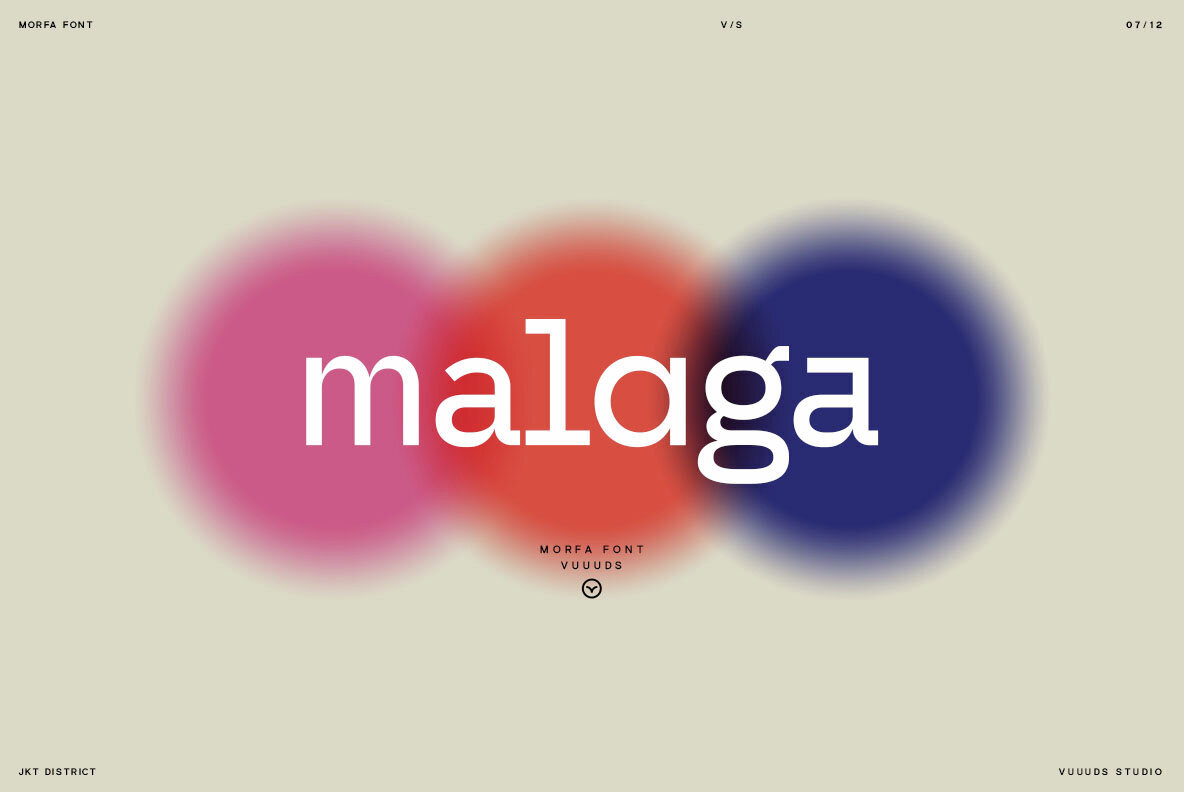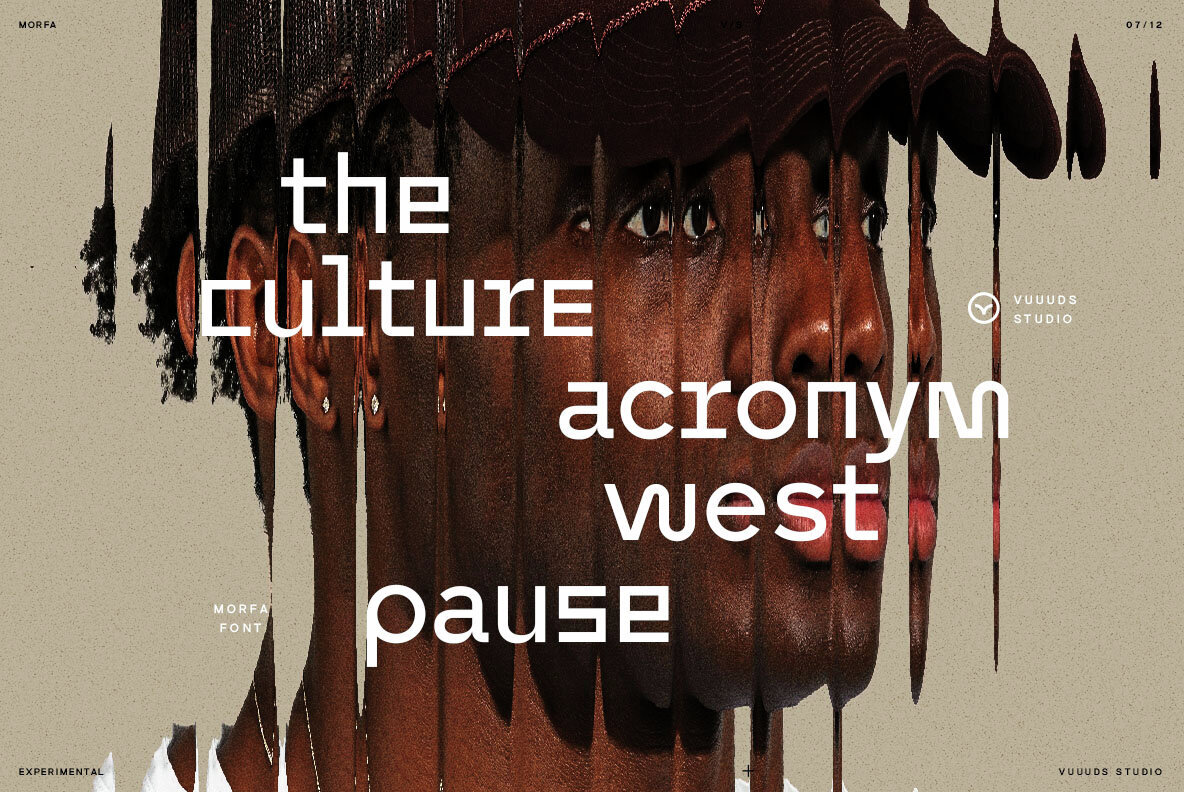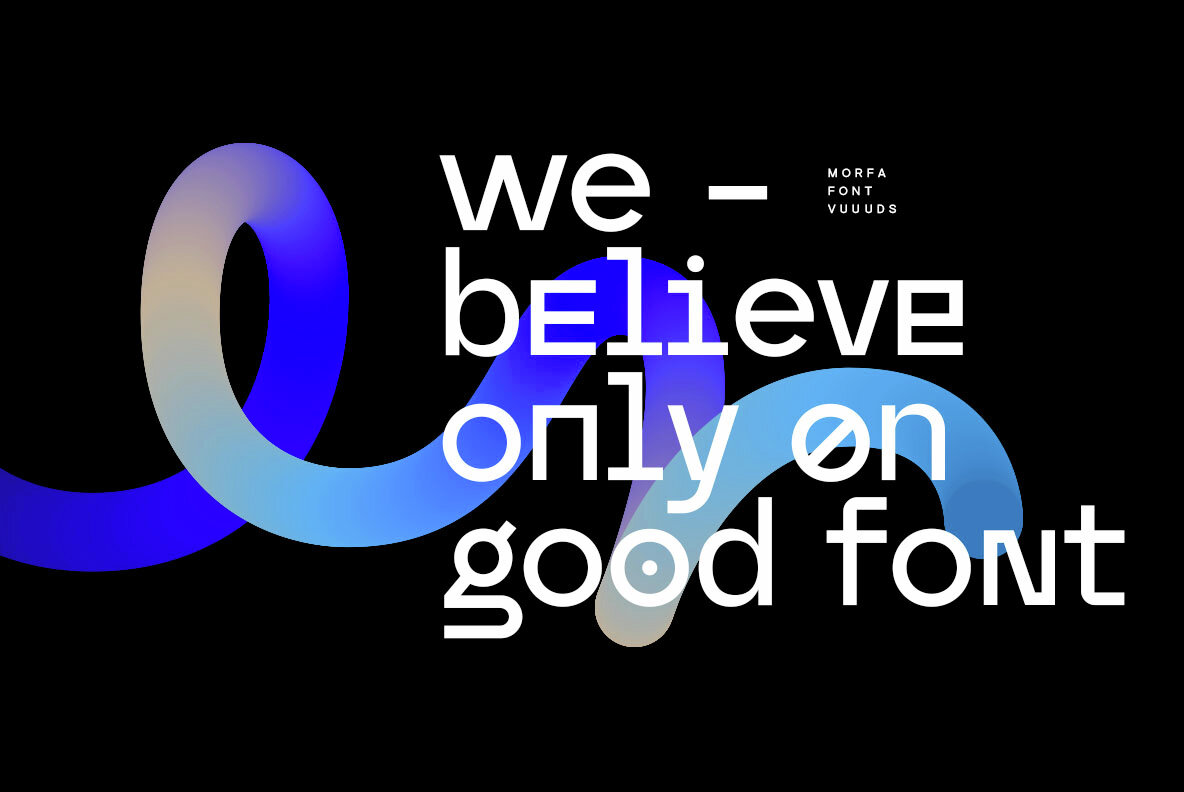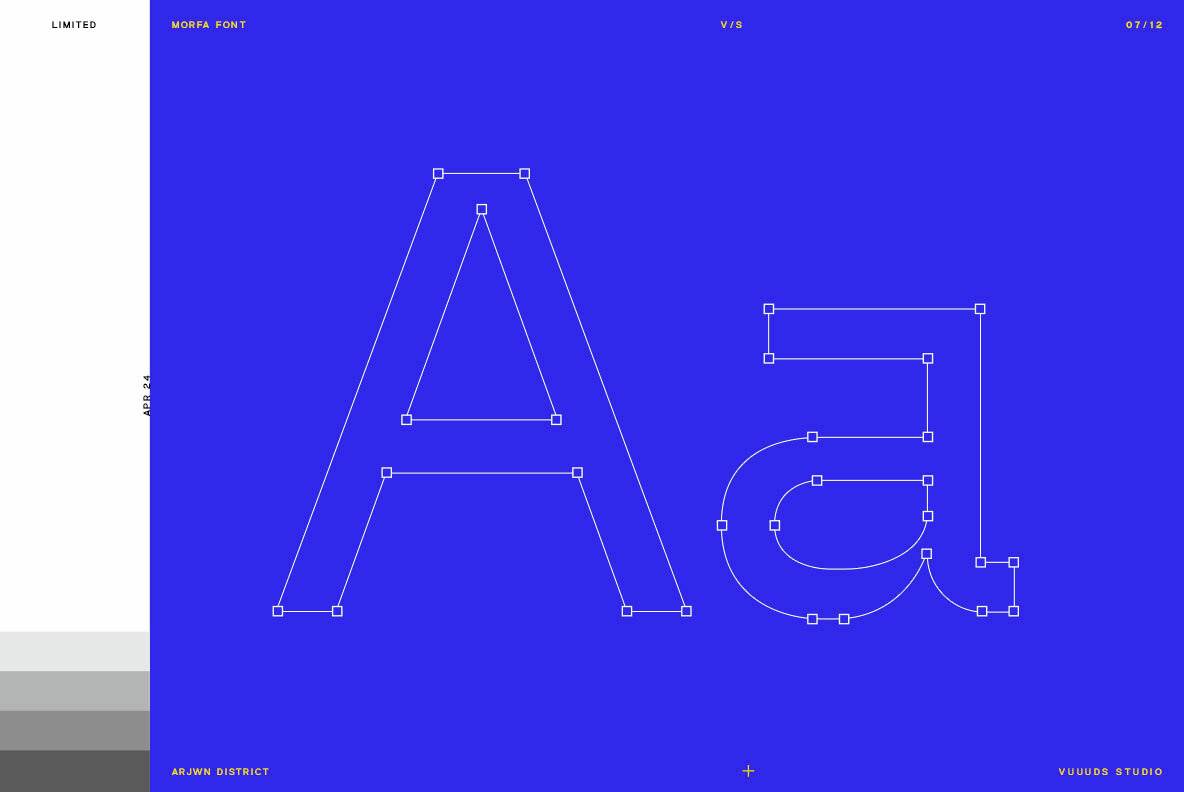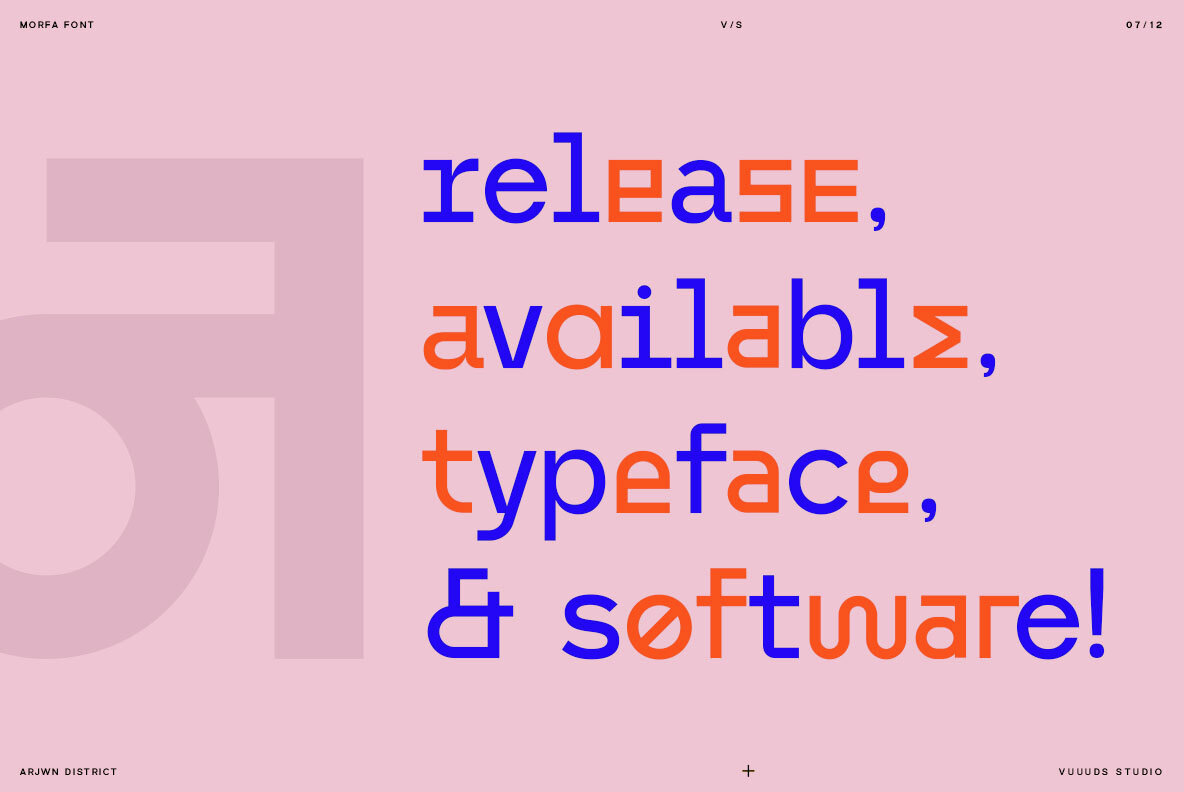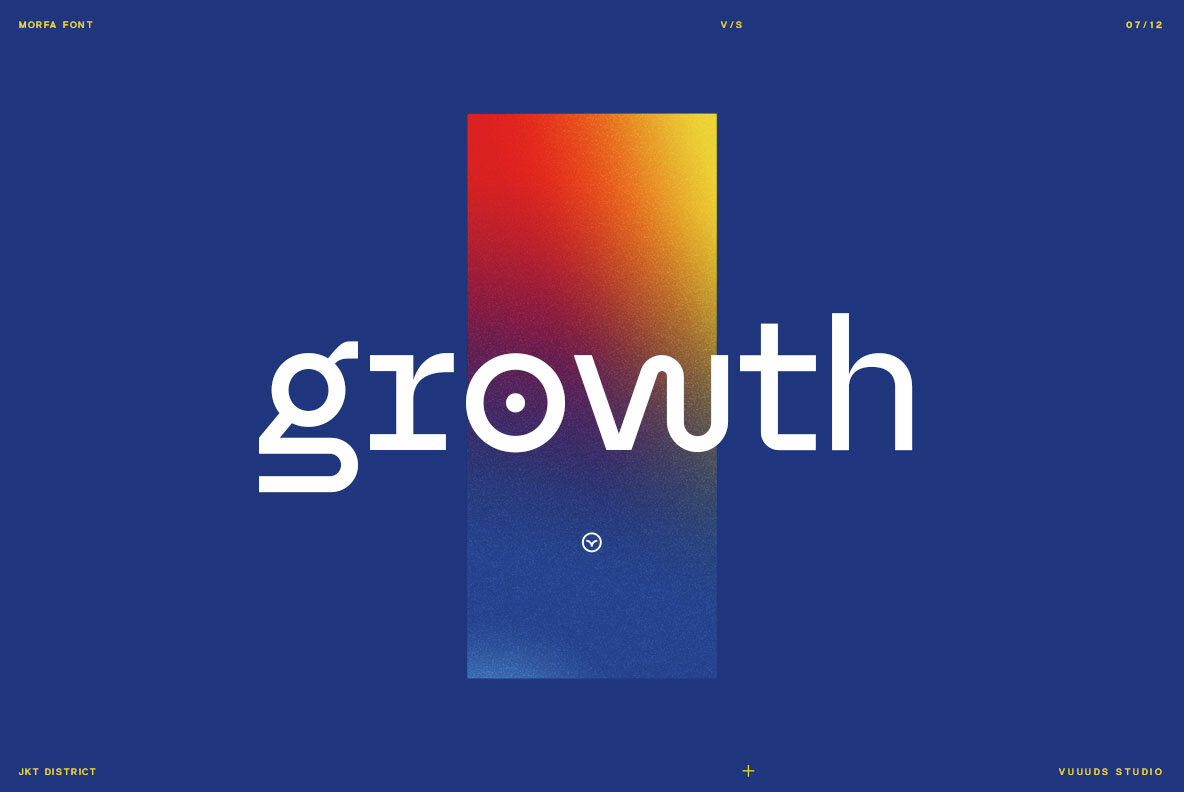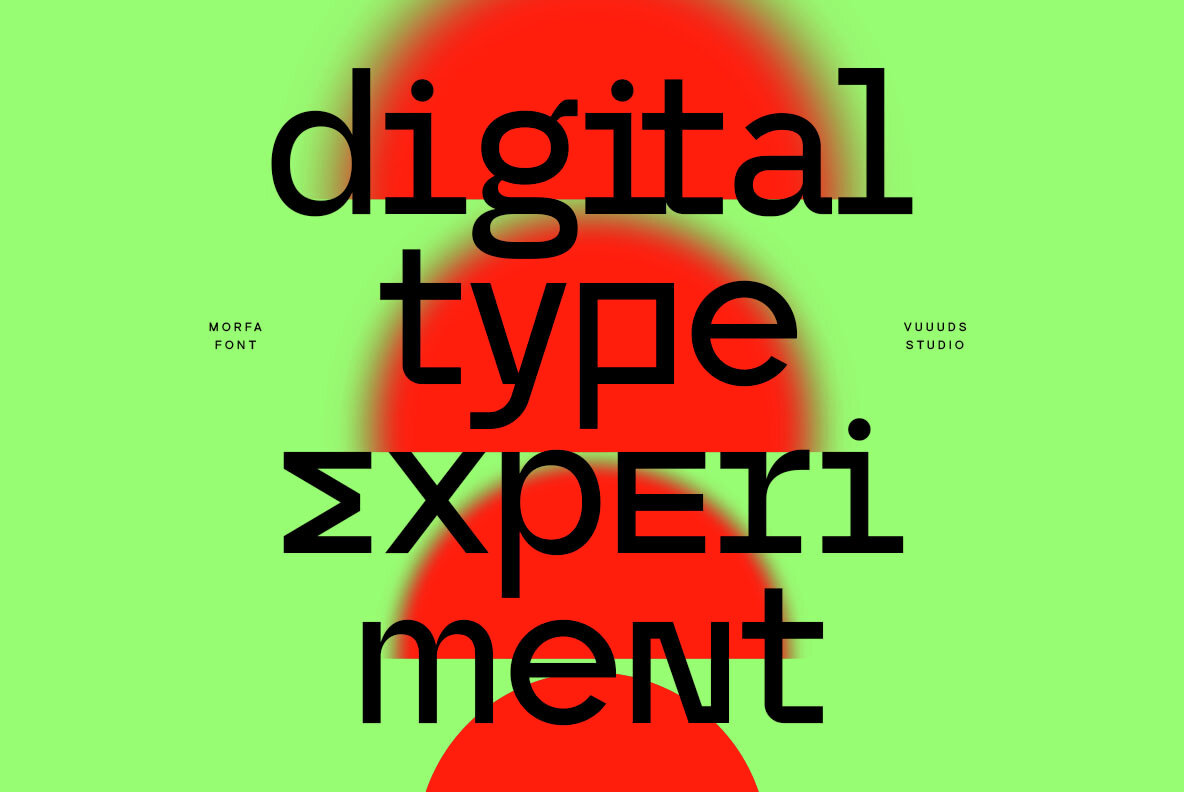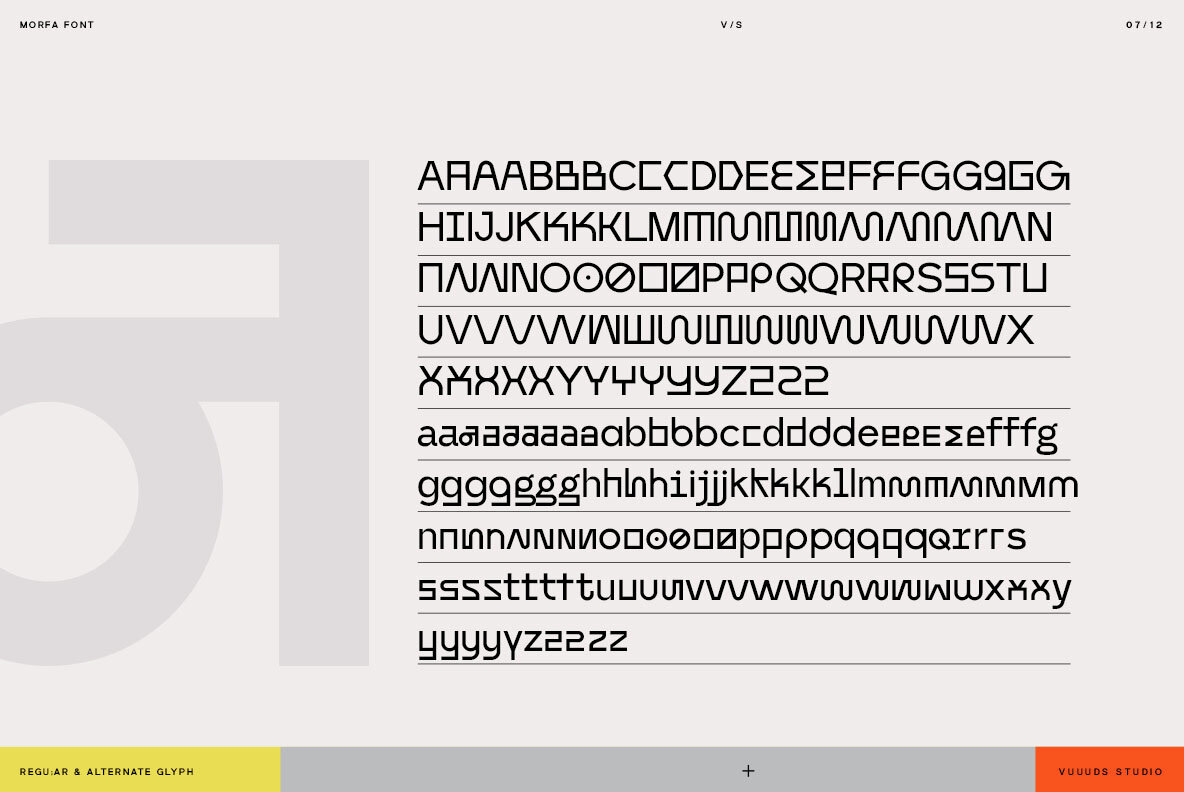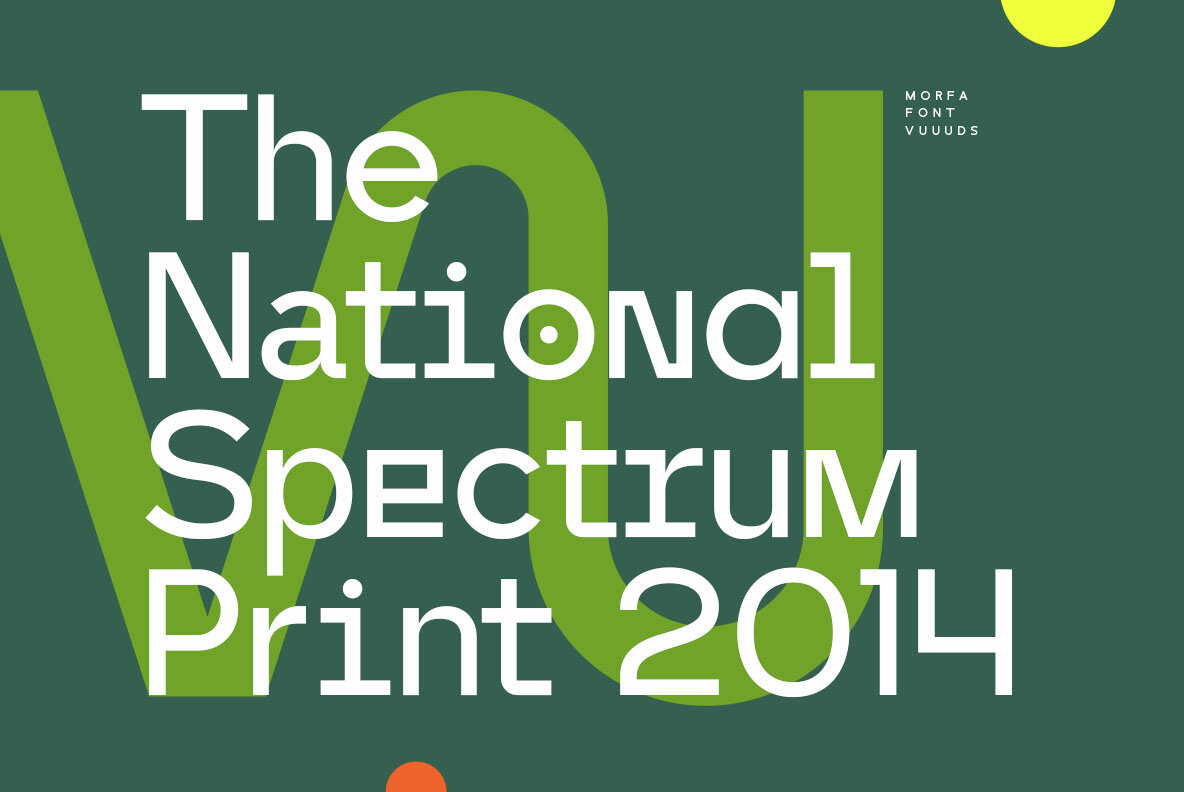
Morfa Font
Morfa Regular
This font is a bold, geometric sans-serif typeface that features a strong and contemporary aesthetic ideal for display purposes. Its monoweight lines and clean finishing give it a highly legible and modern look, which is perfect for impactful headlines, branding, and minimalist design projects.